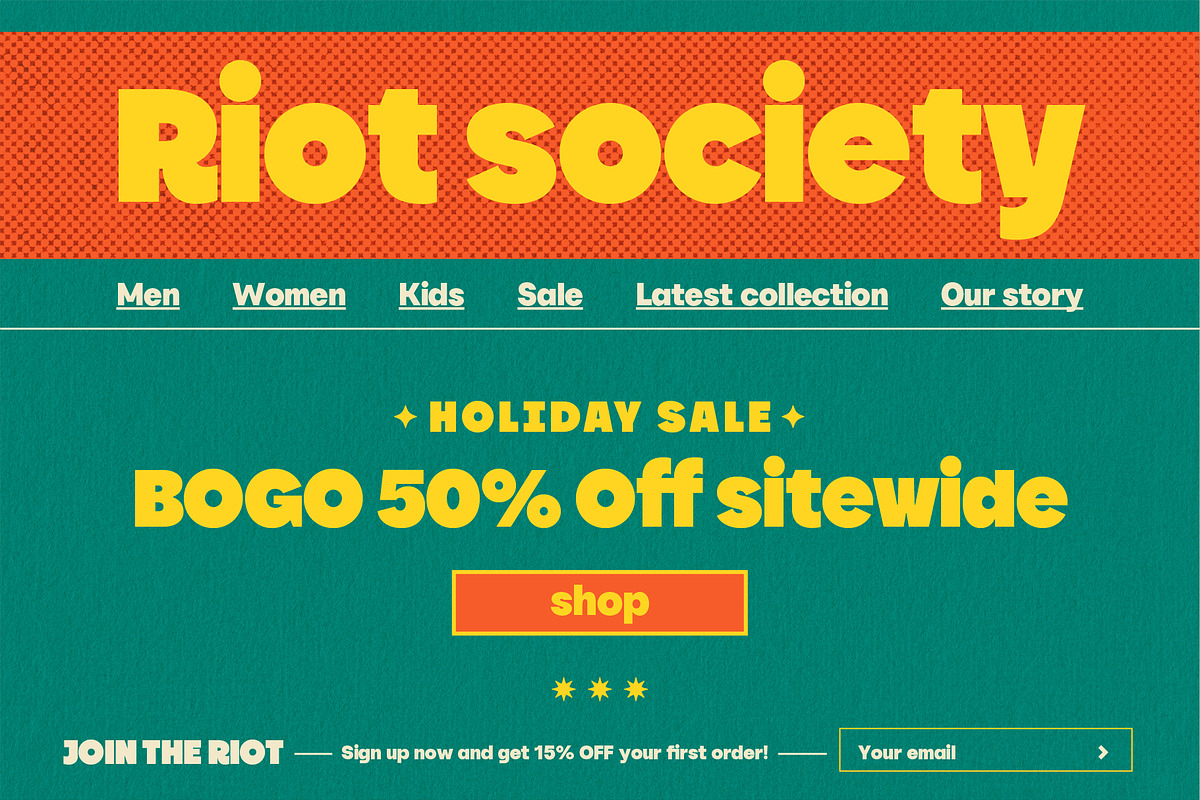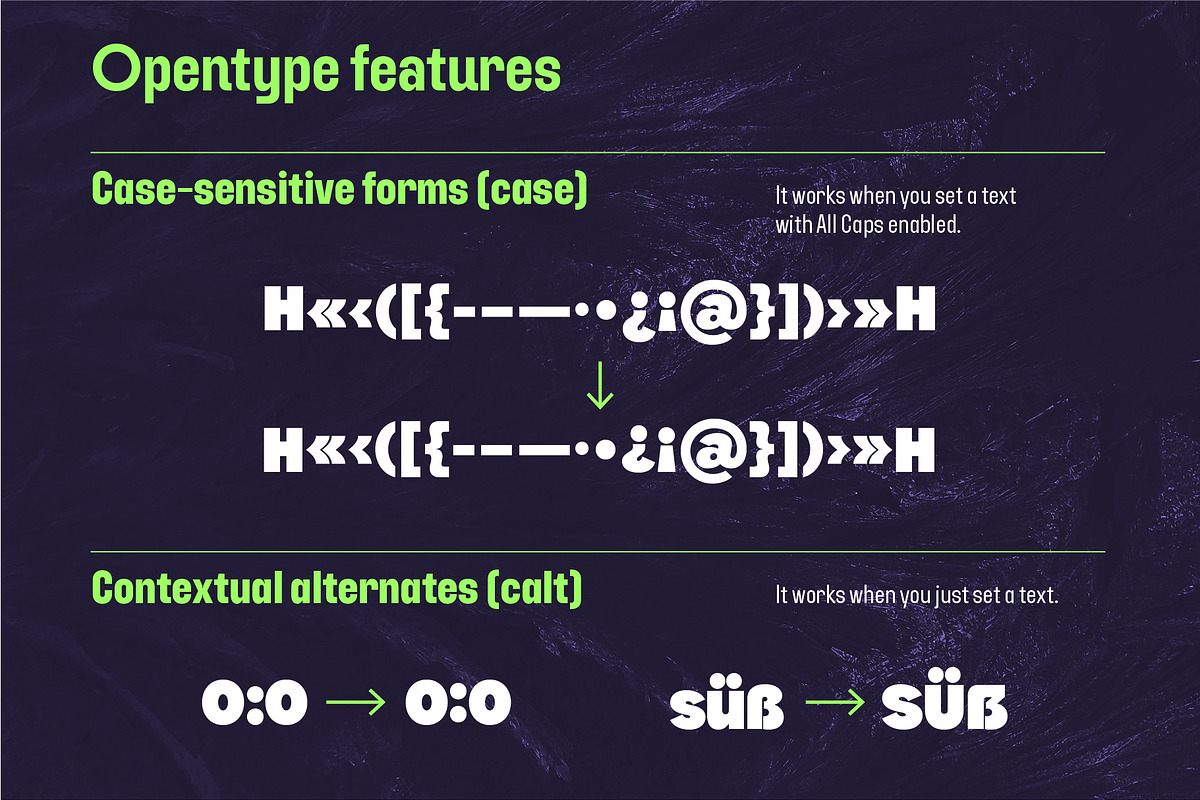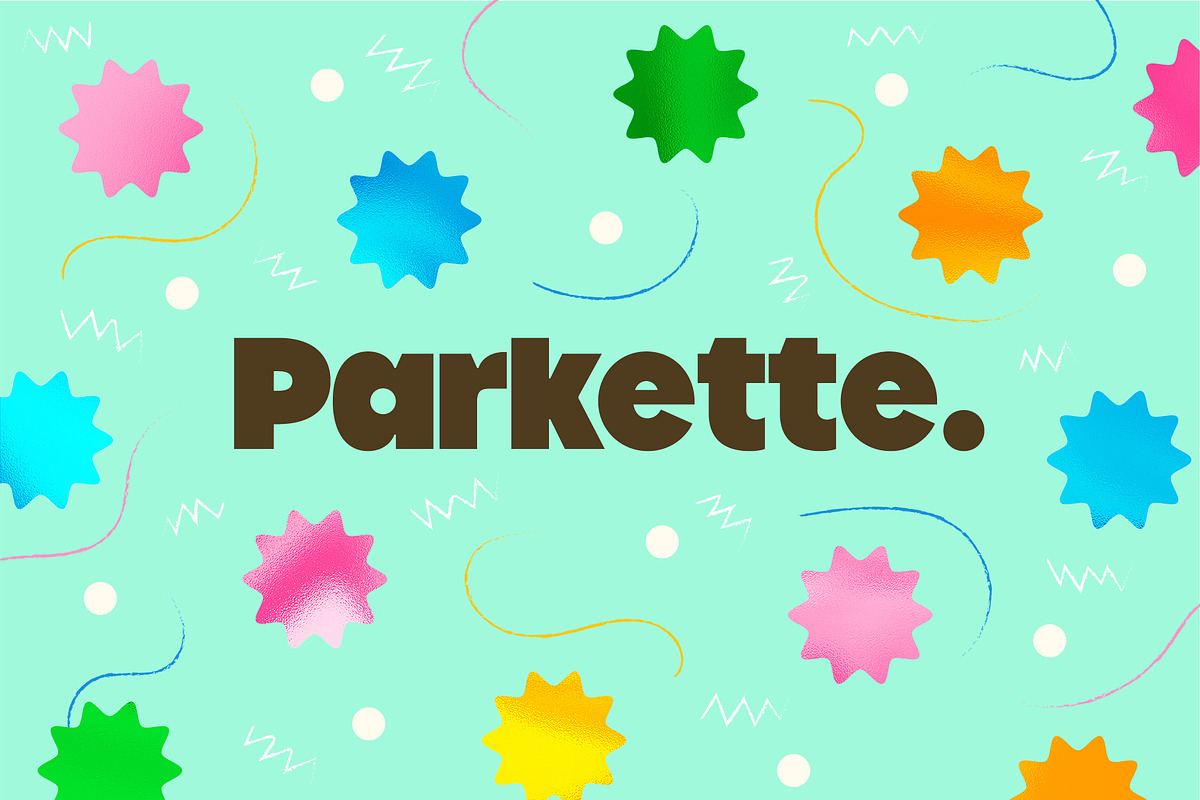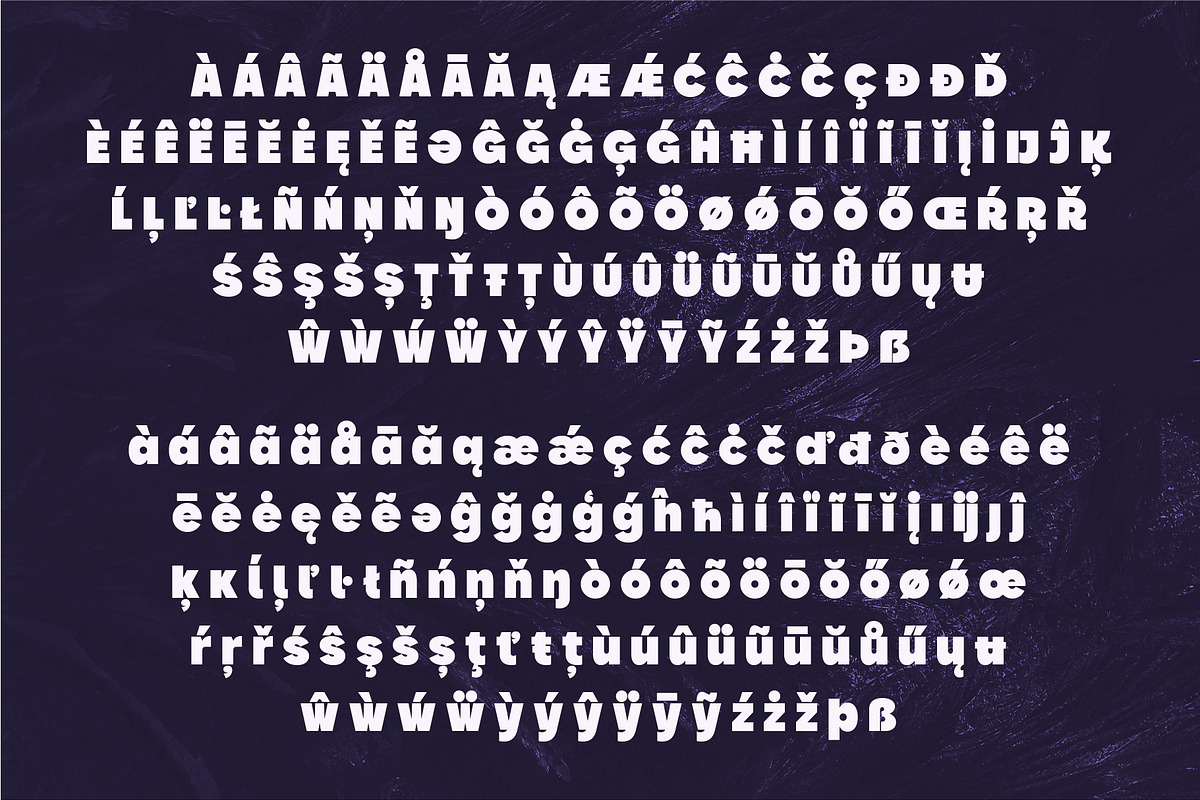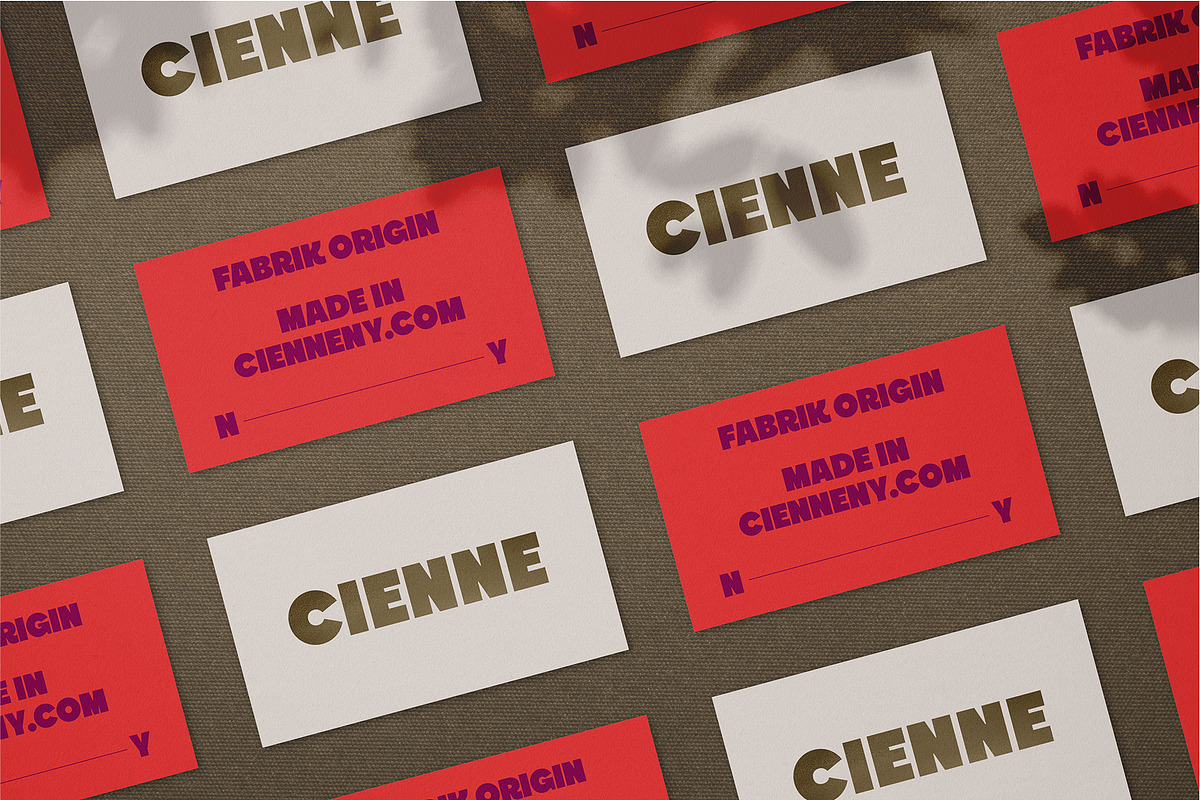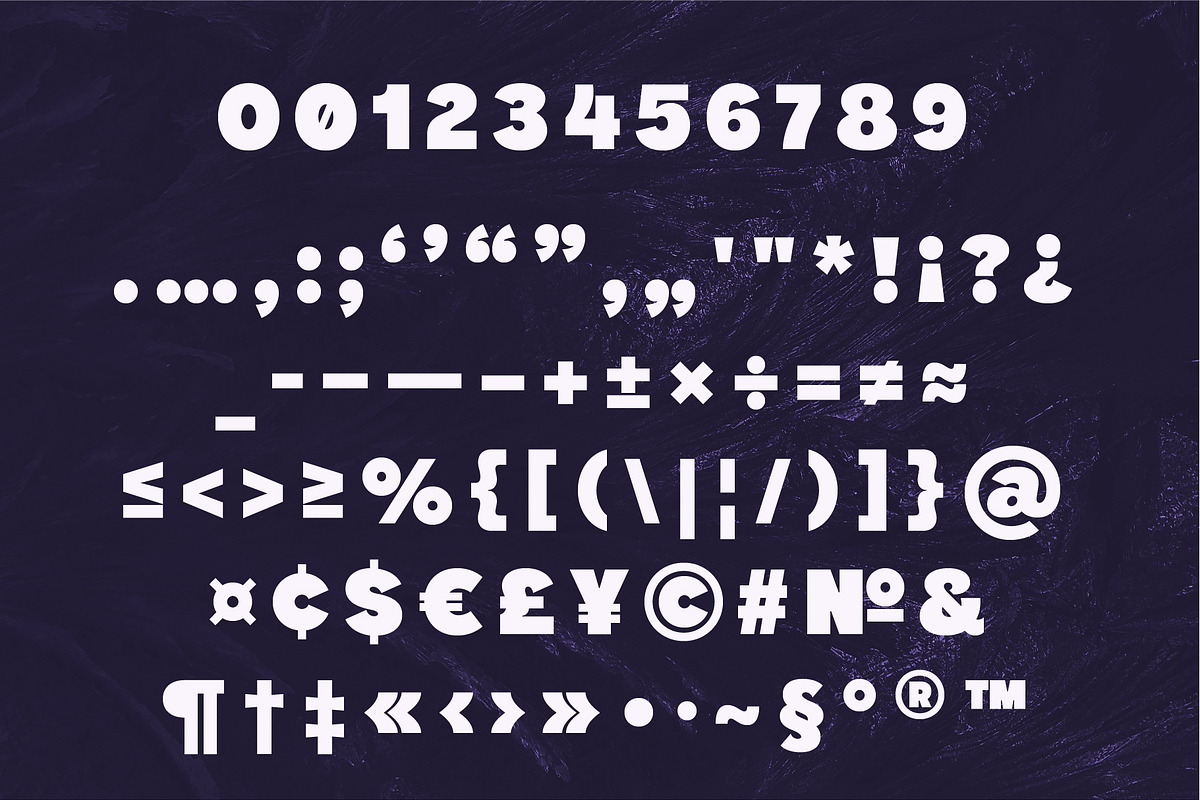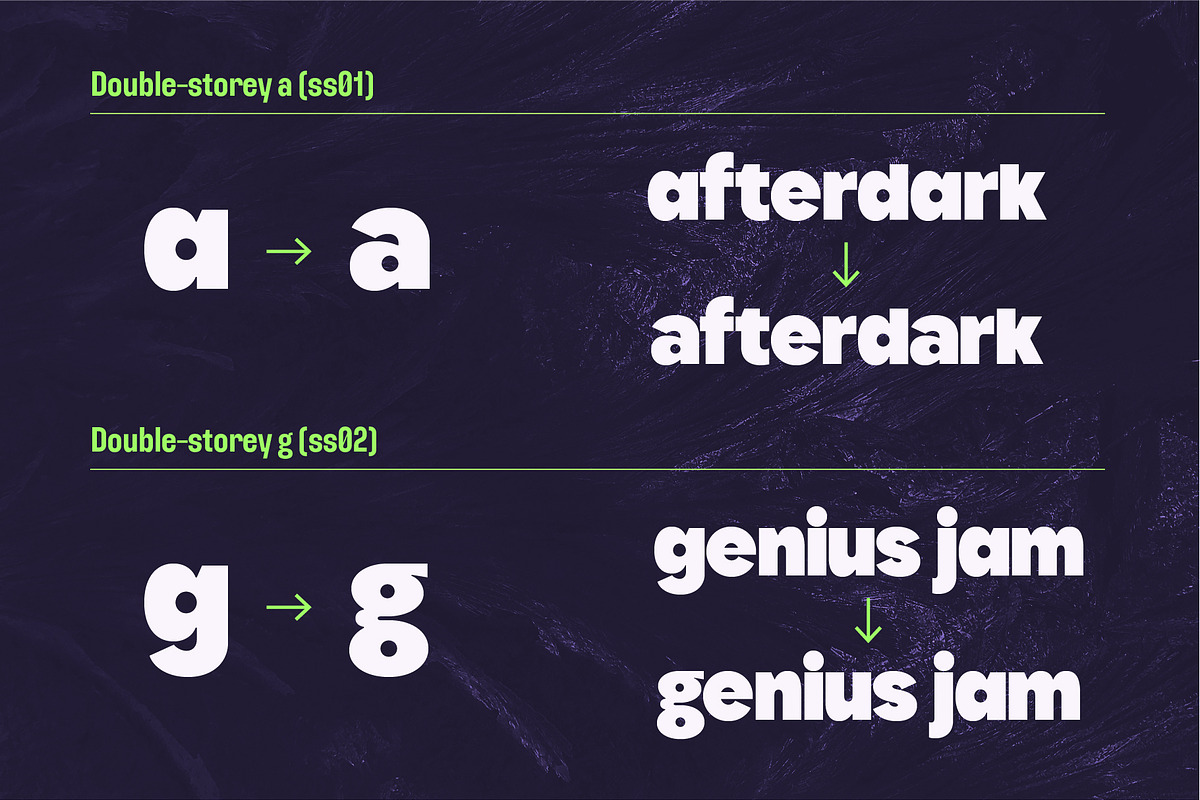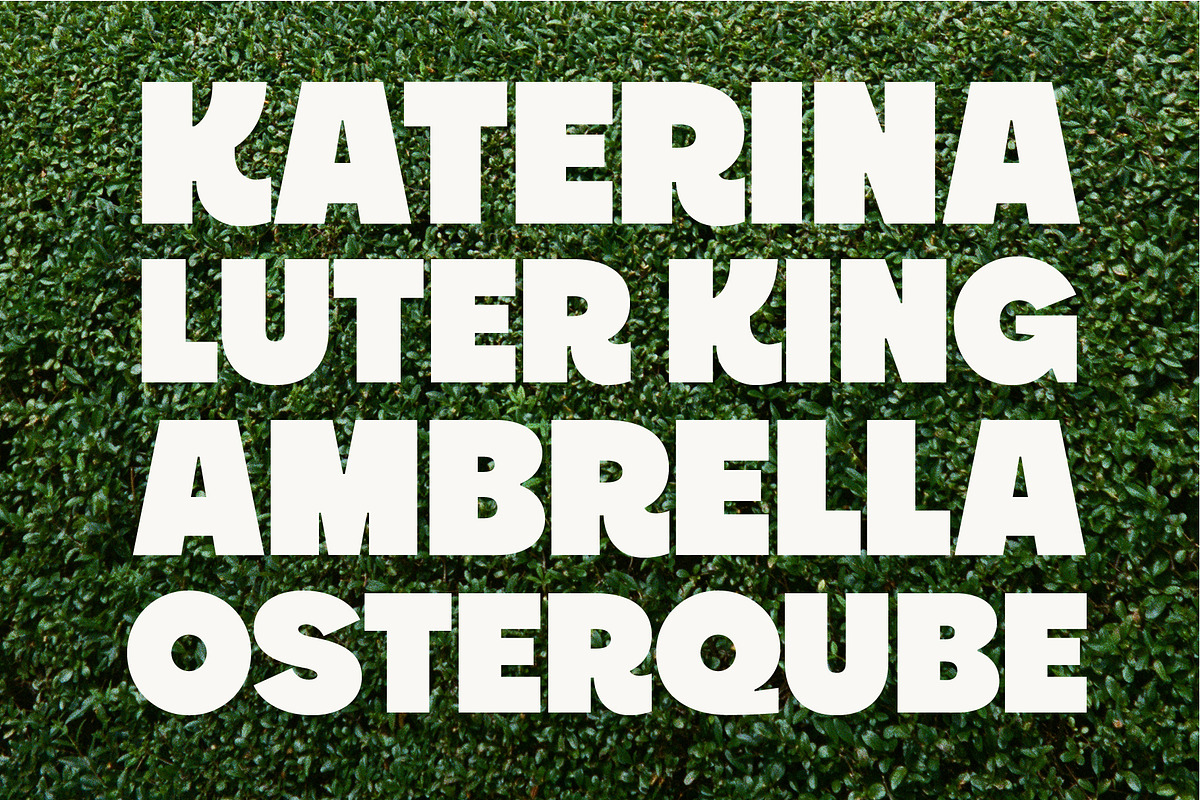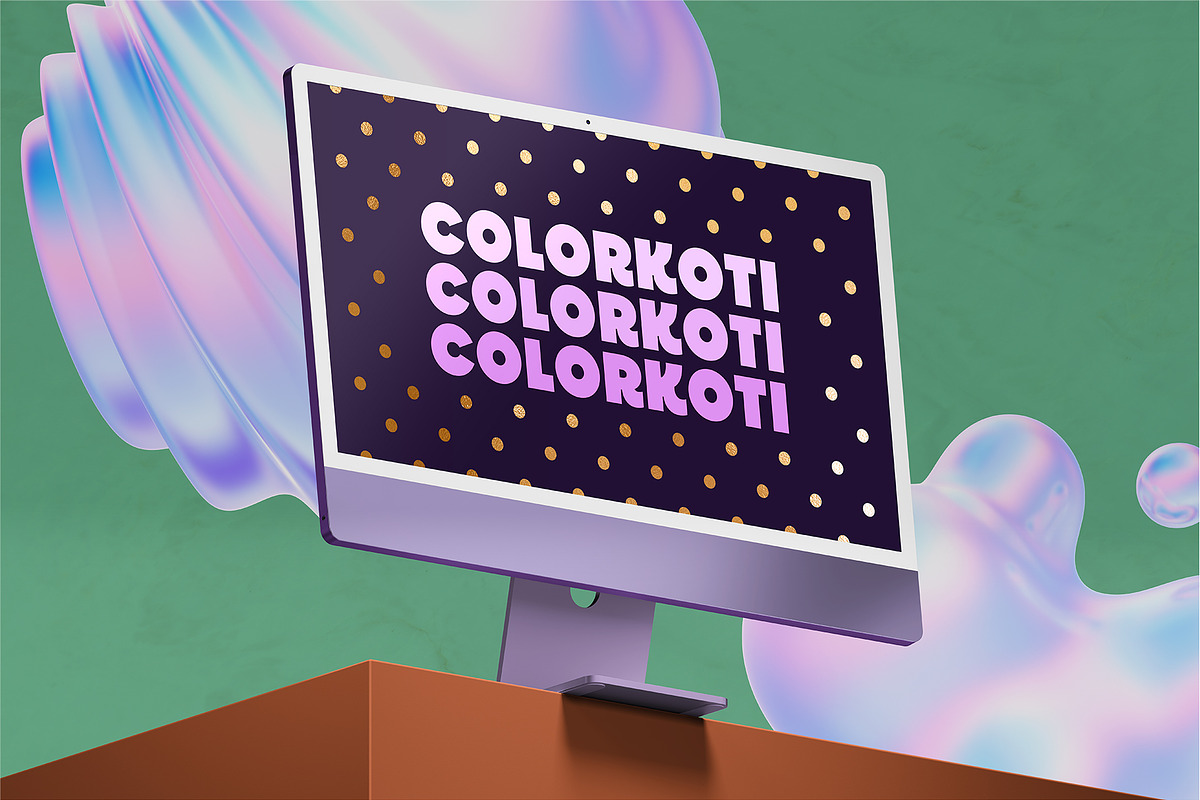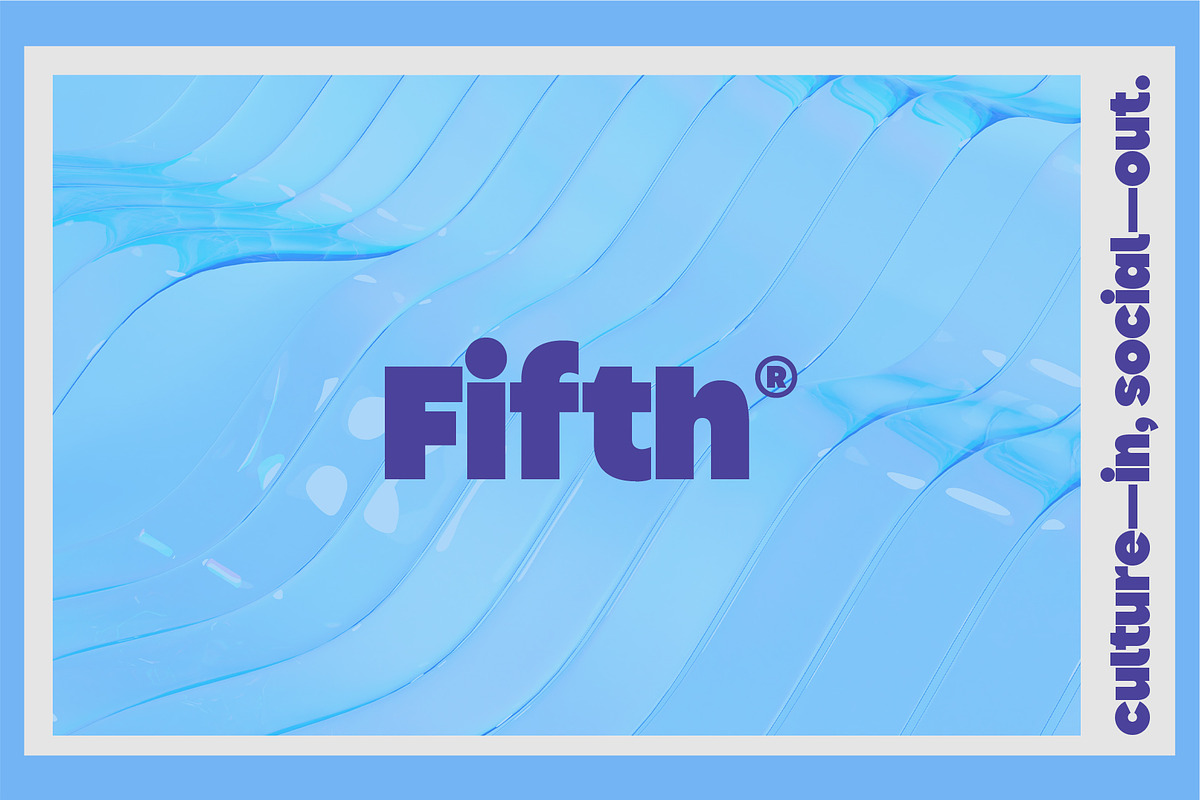
YNF Headliner | Wonderful sans serif
YNF Headliner is made for confident short lines and headlines. And it will be a good companion in identity projects. It has an expressive character, including through alternative glyphs and ligatures. See the presentation for all the details!
- Uppercase and lowercase letters
- Punctuation marks and other essential glyphs
- Alternates, standard and discretionary ligatures